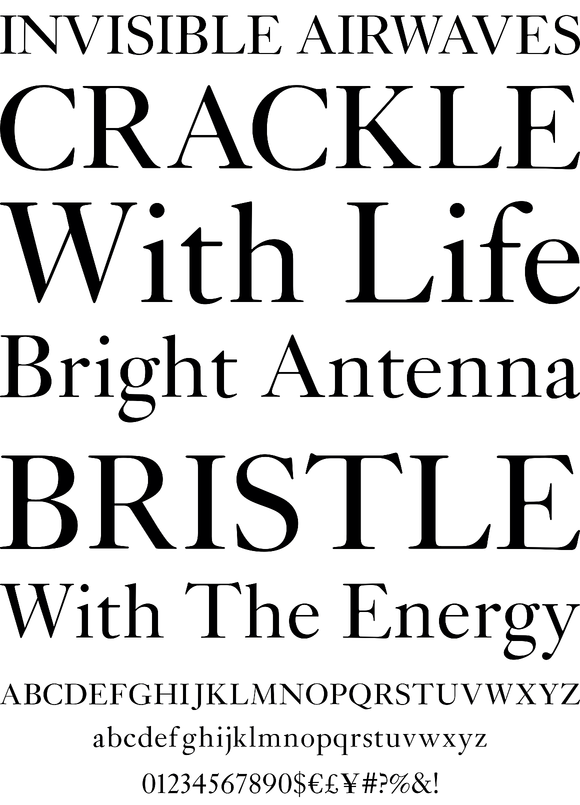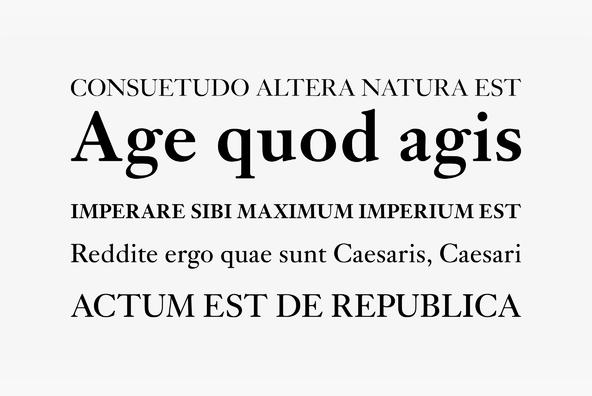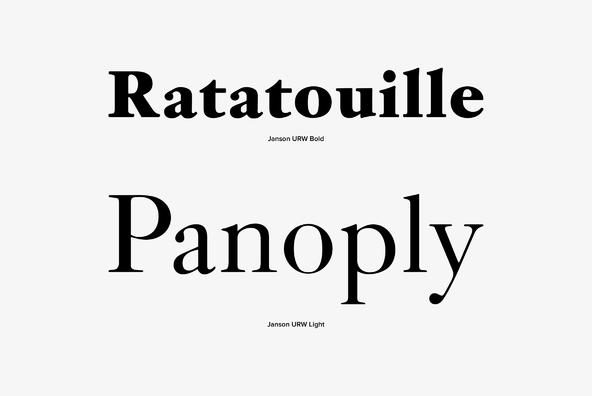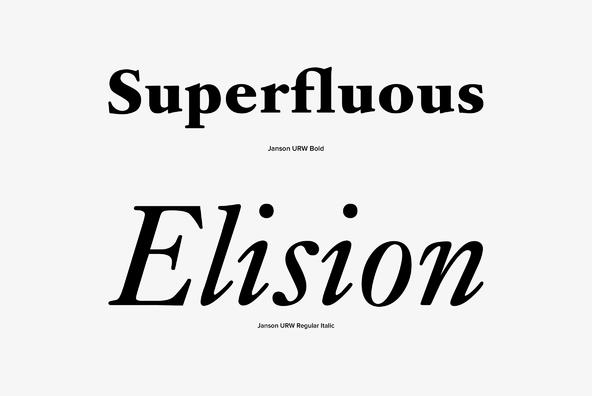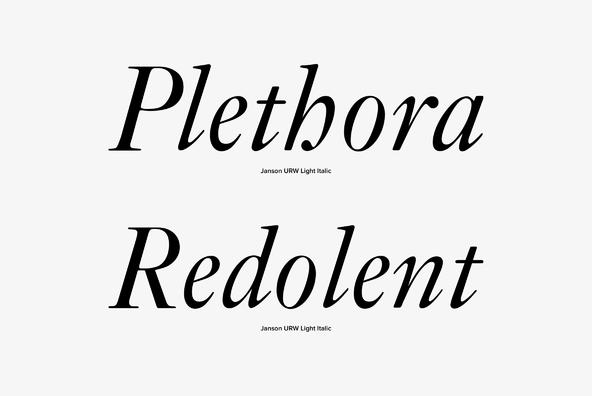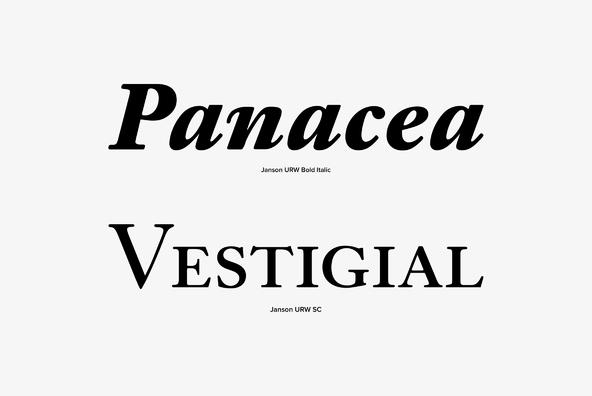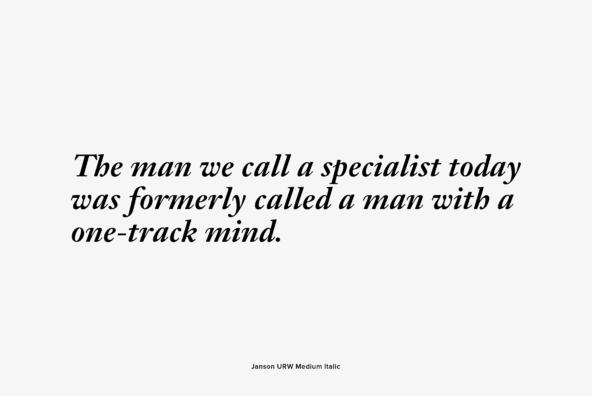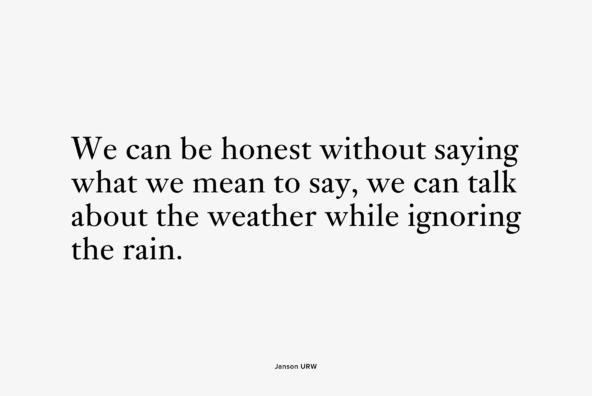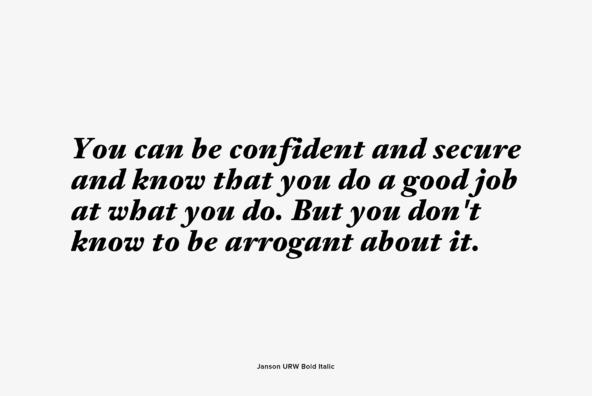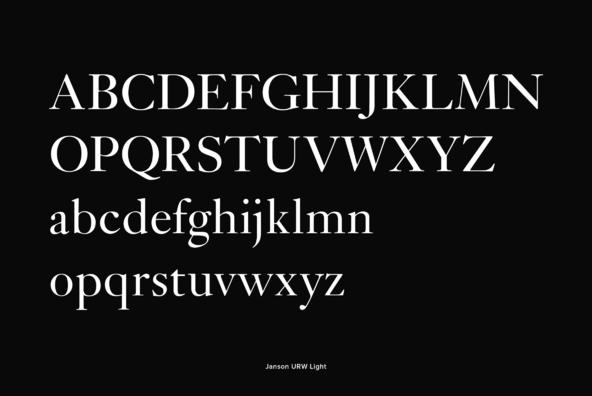
This is URW's digitization and design of Miklós Tótfalusi Kis's classic serif Janson. Janson is the name given to an old-style serif typeface named for Dutch punch-cutter and printer Anton Janson. Research in the 1970s and early 1980s, however, concluded that the typeface was the work of a Hungarian punch-cutter named Miklós (Nicholas) Tótfalusi Kis. Tótfalusi Kis traveled to Amsterdam in 1680 to apprentice under Dirk Voskens and cut several typeface while working under Voskens, producing a roman text face c. 1685 upon which present-day Janson is based. Tótfalusi Kis also cut Greek and Hebrew typefaces, both for use in printing Polyglot Bibles. Janson shows strong influence of the Dutch Baroque typefaces.